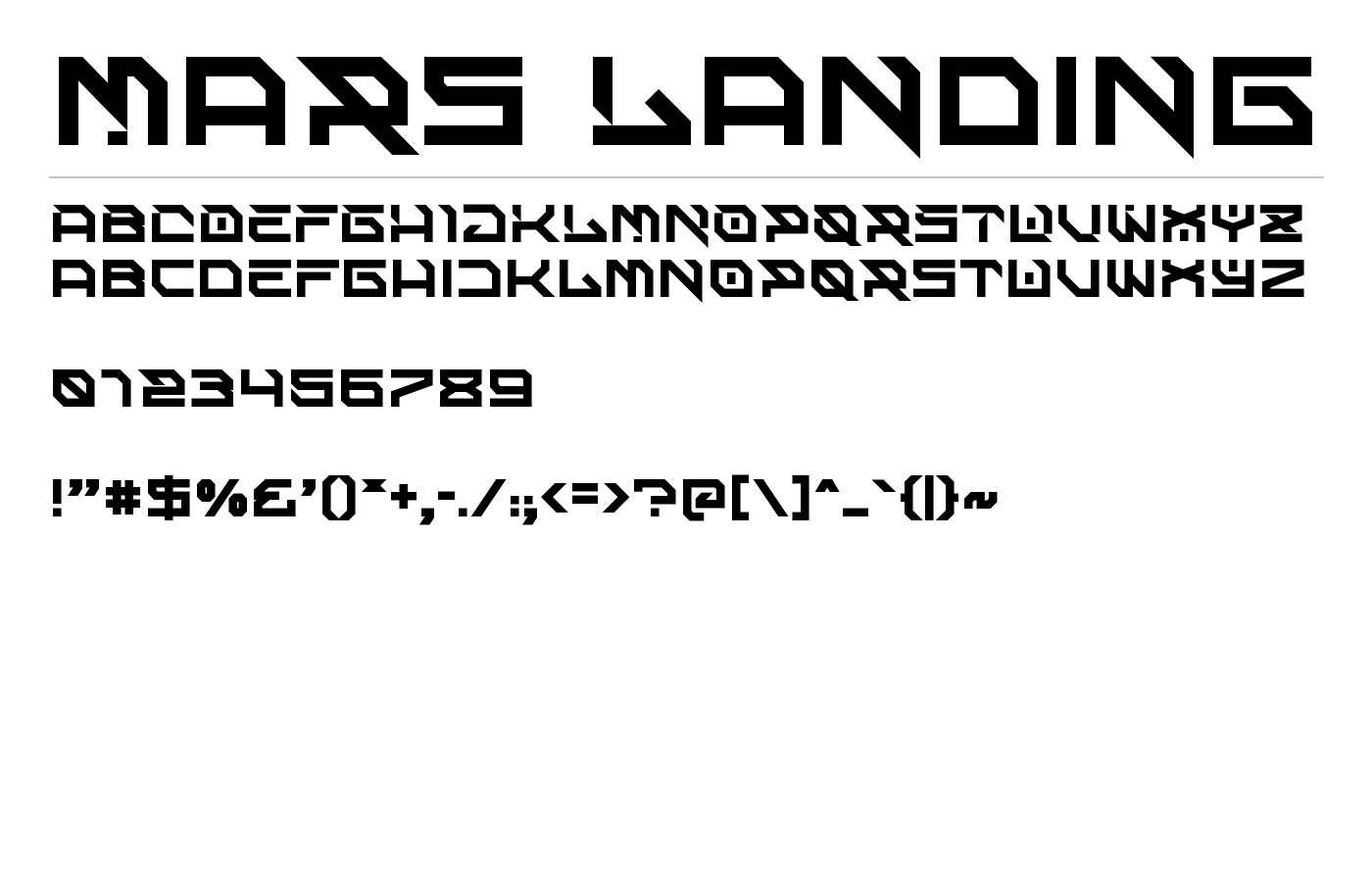
Mars Landing is a bold, futuristic sans serif font with a strong geometric and angular design that evokes a sci-fi, space-age aesthetic. Its sharp edges, high contrast strokes, and unique letterforms make it perfect for tech, gaming, and sci-fi branding or headlines where a striking, modern appearance is needed. This font works best in logos, posters, and digital media that aim to convey innovation and a cutting-edge vibe.
Mars Landing Font
About Mars Landing Font
| Font family | Mars Landing Font |
| Designer | Sahirul Puguh |